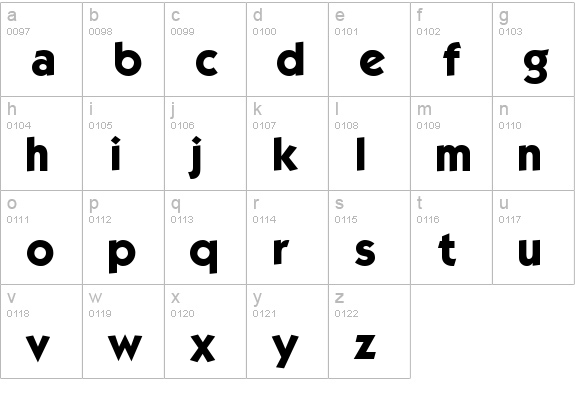
TR Kabel Bd Normal Font Details
TR Kabel Bd Normal is the standard, neutral variant in the TR typeface family \xE2\x80\x94 well suited to general body text, paragraphs, and standard typographic work.
TR Kabel Bd Normal is a modern and sleek typeface that is perfect for various design projects. Its bold and strong appearance makes it ideal for headlines, posters, logos, and more. With its clean lines and geometric shapes, TR Kabel Bd Normal exudes a sense of professionalism and sophistication. The best part about TR Kabel Bd Normal is that it is available for free download at FontsMarket.com. This means you can easily access this high-quality font without any cost. Whether you are a designer, student, or hobbyist, TR Kabel Bd Normal offers a versatile and stylish option for your typography needs. Download TR Kabel Bd Normal today from FontsMarket.com and elevate your designs with this fantastic font choice.